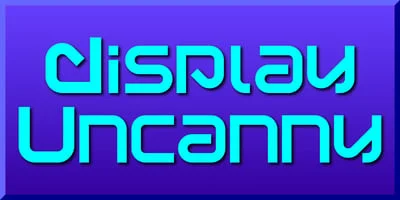
Display Uncanny Font
Display Uncanny Font is ideal for horror movie titles, psychological thriller campaigns, supernatural entertainment branding, mystery novel covers, eerie event promotions, dark art exhibitions, haunting music albums, paranormal investigation materials, gothic fashion labels, and unsettling applications that create suspense and explore the mysterious boundaries between reality and the unknown.
What makes Display Uncanny Font truly exciting is its masterful ability to evoke psychological unease and supernatural intrigue that taps into our primal fascination with the mysterious and unexplained phenomena that exist at the edges of human understanding. This exceptional typeface combines familiar letterforms with disturbing irregularities, featuring unsettling character shapes and disorienting proportions that create an immediate sense of wrongness and otherworldly presence. The font's uncanny personality and psychological impact make it perfect for creators seeking to communicate mystery, suspense, and the spine-tingling sensation of encountering something that defies rational explanation.
The Display Uncanny Font family includes multiple weights and styles: Light, Regular, Bold, Distorted, and Haunting variations designed for maximum psychological impact. Each family member maintains the distinctive unsettling character while offering flexibility for diverse horror applications and supernatural branding systems. The comprehensive character set supports eerie typography needs and mysterious design elements, making it suitable for international thriller communications.
When you choose Display Uncanny Font, you're selecting a typography nightmare that delivers authentic supernatural credibility and psychological unease to every spine-chilling project. This disturbing typeface excels in applications where mystery and psychological tension are paramount, delivering exceptional eerie appeal while maintaining horror authenticity. Whether you're designing thriller brands, supernatural entertainment, horror campaigns, or mysterious marketing materials, this font provides the uncanny sophistication and psychological disturbance that resonates with audiences who appreciate supernatural suspense, psychological horror, and the thrilling exploration of humanity's darkest fears and most unsettling mysteries.